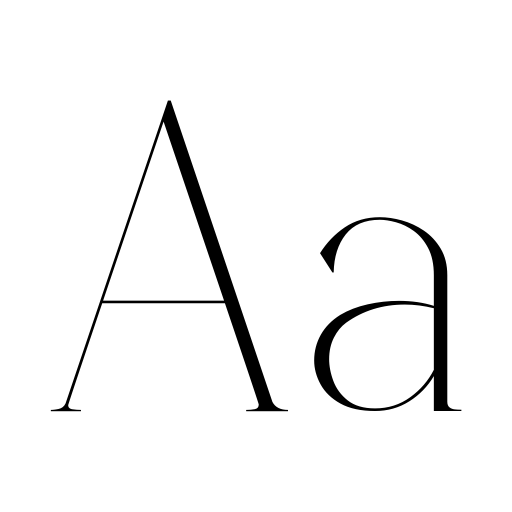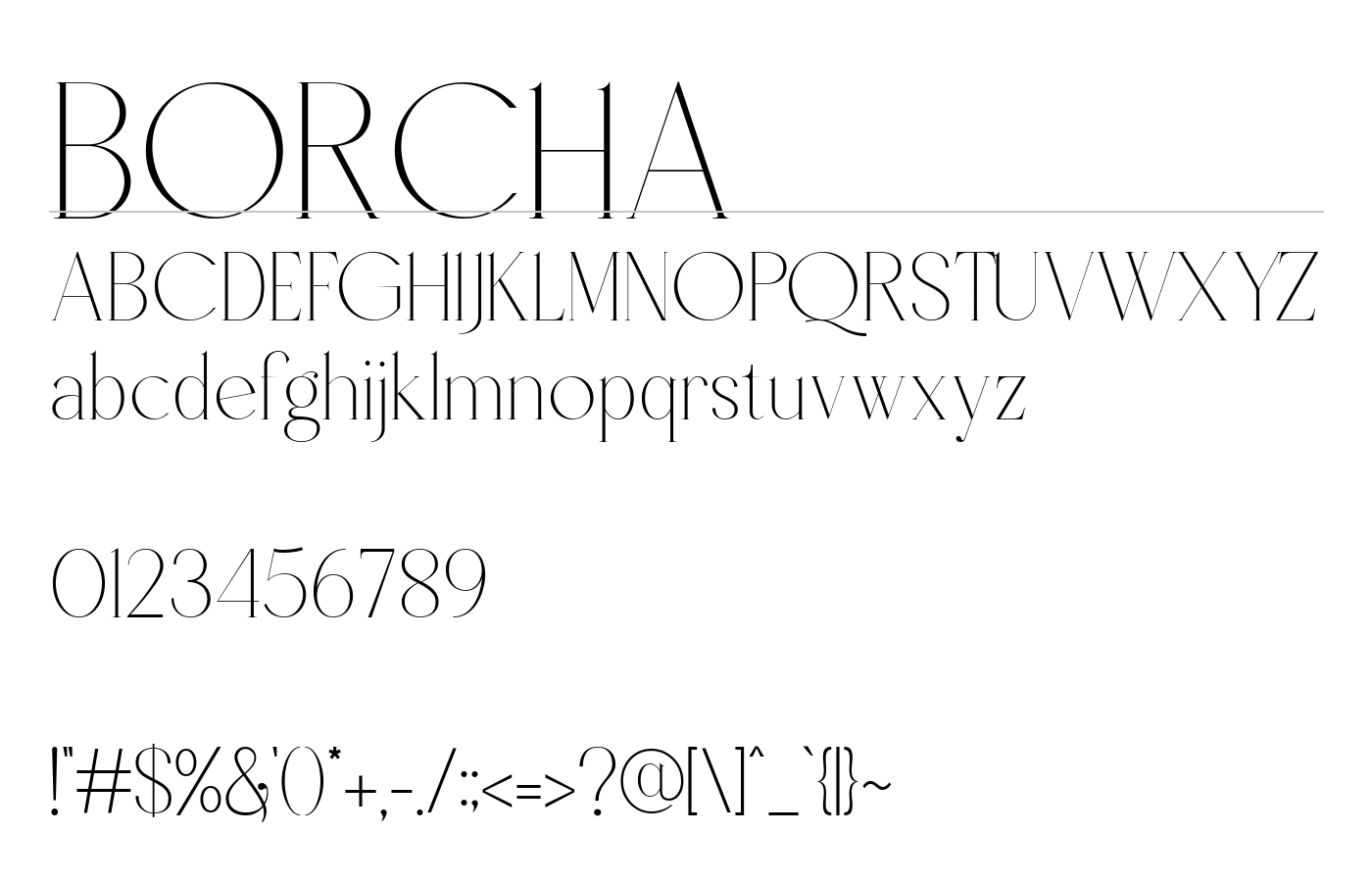
BORCHA is an elegant serif typeface characterized by its ultra-thin strokes, high contrast, and delicate, refined forms that create a sophisticated and graceful appearance. Its tall, narrow letterforms with distinctive flared serifs and stylish curves make it ideal for luxury branding, high-end editorial work, and fashion-focused designs where a modern yet timeless feel is desired. This font excels in large display use such as headlines or logos, adding a touch of class and finesse to any project.
BORCHA Font